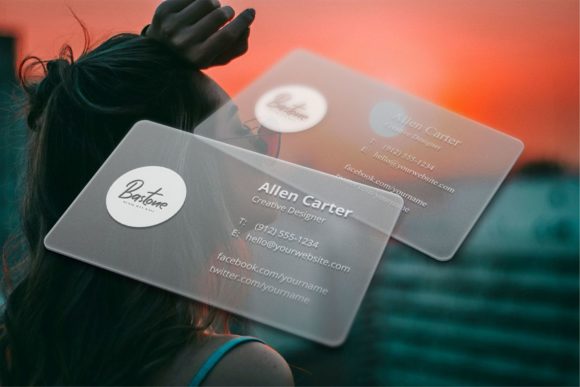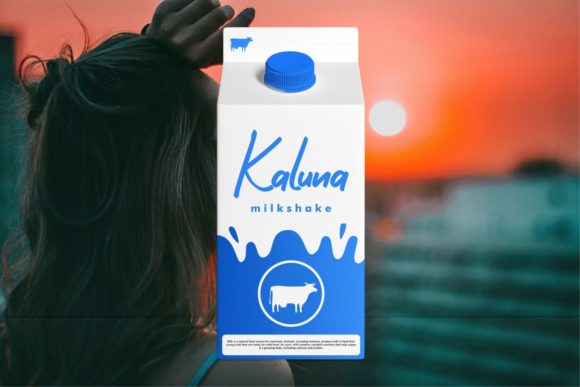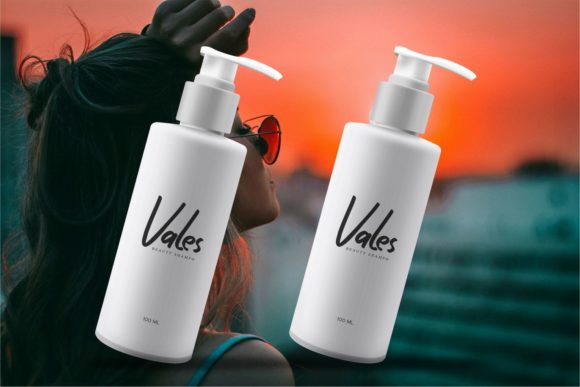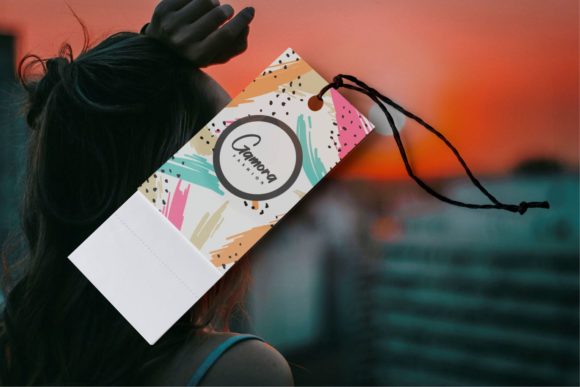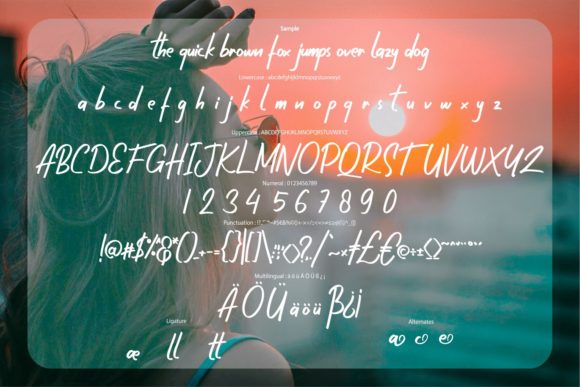
The Designer’s Delight: Afelia Font
I’ll never forget the time I was working on a project for a client who wanted a elegant and modern look. I had spent hours browsing through font libraries, but nothing seemed quite right. That was until I stumbled upon Afelia, a beautiful handwritten font that instantly caught my eye. In this article, I’ll share my experience with Afelia, its features, and how to make the most of it in your designs.
A Personal Review of Afelia
Afelia has quickly become one of my go-to fonts, and for good reason. Here’s what I love about it:
- ✨ Elegant and modern feel: Afelia has a sophisticated, high-end look that’s perfect for luxury brands or creative projects.
- ✅ Highly legible: Despite its elegant feel, Afelia is surprisingly easy to read, even at smaller font sizes.
- 💫 Versatile: Afelia works well for both headings and body text, making it a great all-around font.
Of course, no font is perfect, and Afelia has a few small quirks:
- 🤔 Limited availability of certain characters: Some users have reported that certain special characters or glyphs are not available in Afelia.
- ⚠️ May not work well with very large or very small font sizes: Like any font, Afelia has its sweet spot, and extreme font sizes may affect its appearance.
The Story Behind Afelia
Afelia was designed by a team of typographers who wanted to create a font that embodied elegance and sophistication. Inspired by classic calligraphy, Afelia brings a touch of luxury to any design project.
| What is Afelia’s personality? | Afelia has an elegant, modern feel that’s perfect for luxury brands or creative projects. |
| Is Afelia suitable for body text? | Yes, Afelia is highly legible and works well for both headings and body text. |
| Does Afelia support OpenType features? | Yes, Afelia supports OpenType features like glyphs and stylistic alternates. |